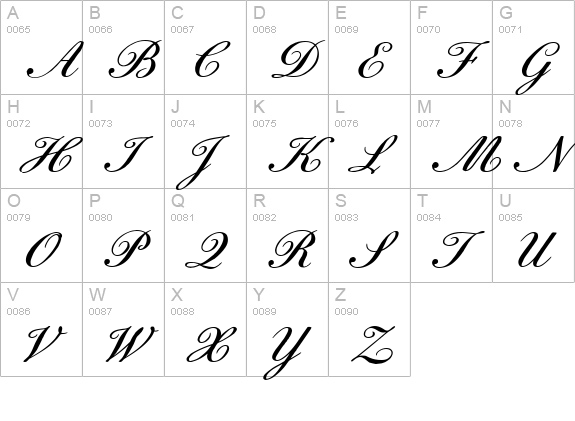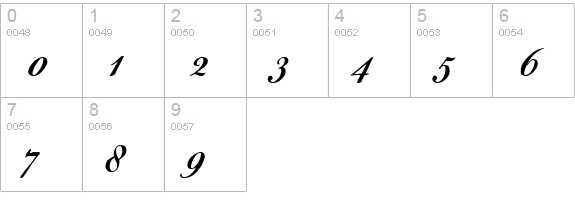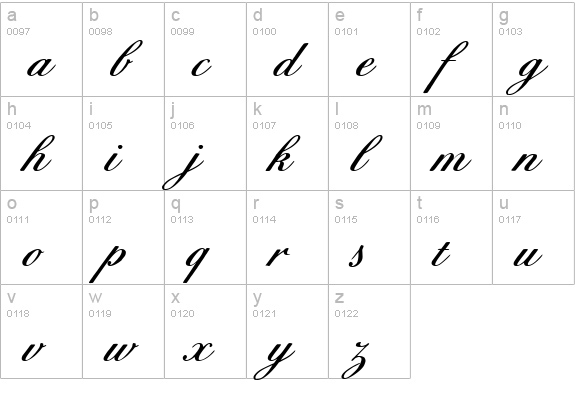
BixAntiqueScriptHmkBold Font Details
BixAntiqueScriptHmkBold is a charming and elegant vintage-inspired font that exudes a sense of nostalgia and sophistication. Its bold and intricate strokes give it a unique flair that is perfect for adding a touch of elegance to any design project. Whether you're creating invitations, labels, logos, or any other creative project, this font is sure to make a statement. The best part? BixAntiqueScriptHmkBold is available for free download at FontsMarket.com. With its timeless appeal and versatility, this font is a must-have addition to any designer's toolkit. Embrace the beauty of the past with BixAntiqueScriptHmkBold and elevate your designs to the next level.